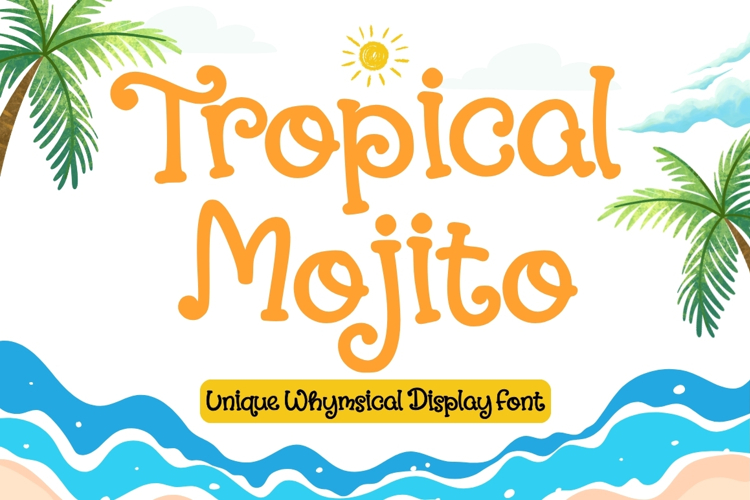
Tropical Mojito
Tropical Mojito is a playful whimsical display handmade font that captures the refreshing energy of tropical escapes, vibrant summer vibes, and handcrafted creativity. Every letter is carefully drawn with organic curves, cheerful personality, and an authentic handmade touch, making each word feel lively, inviting, and full of character.
Inspired by sunny beaches, exotic fruits, tropical cocktails, and carefree holiday moments, Tropical Mojito delivers a fun yet stylish appearance that instantly grabs attention. Its charming imperfections and bold handcrafted strokes create a warm, natural aesthetic that stands out across both digital and print projects.
Perfect for branding, product packaging, café and beverage logos, restaurant menus, summer promotions, social media graphics, greeting cards, children's products, posters, invitations, merchandise, apparel, stickers, quotes, and any creative project that calls for a fresh, joyful, and eye-catching display font.
- Handmade Whimsical Style
Bring a splash of sunshine and tropical charm into your typography with Tropical Mojito—a whimsical handmade display font designed to make every design feel fresh, fun, and unforgettable.